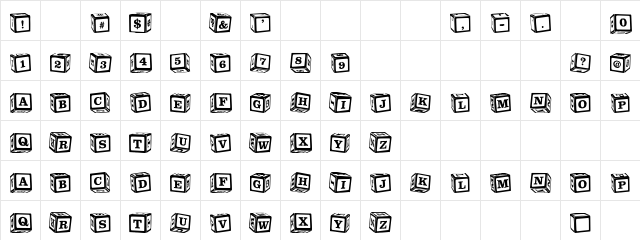
ChildsPlay Blocks Regular Font Preview
ChildsPlay Blocks Regular
Design Context for ChildsPlay Blocks Typeface
ChildsPlay Blocks trades formality for fun, with bouncy, characterful letterforms that bring warmth and energy to any project.
Font Pairing: Pairs well with a rounded or humanist sans for body copy, maintaining the friendly tone without relying on ChildsPlay Blocks to carry extended reading.